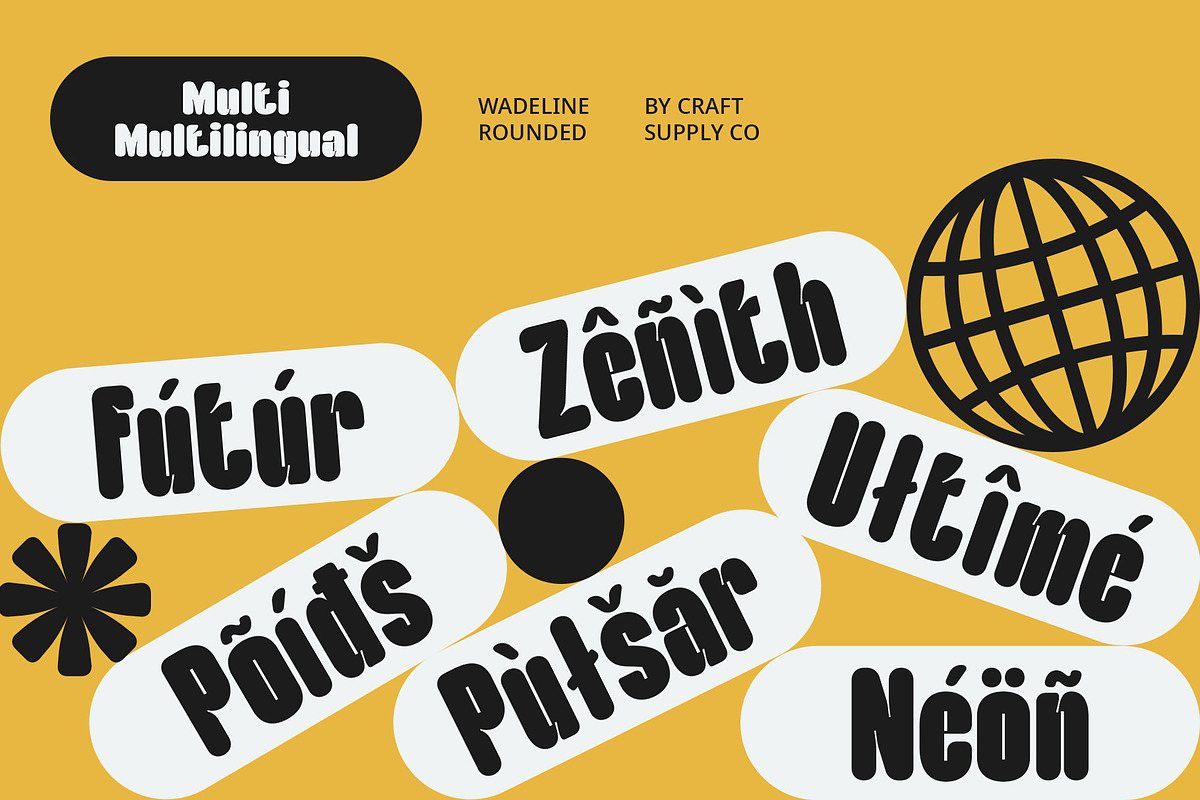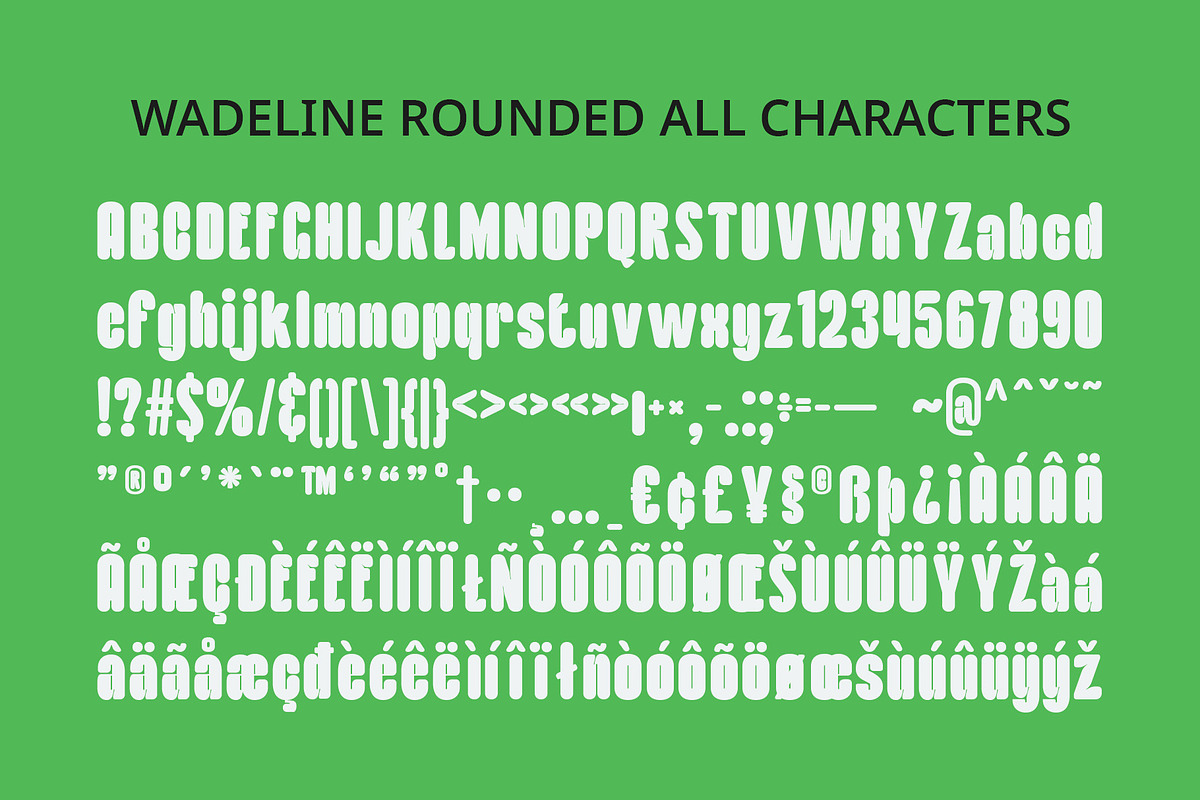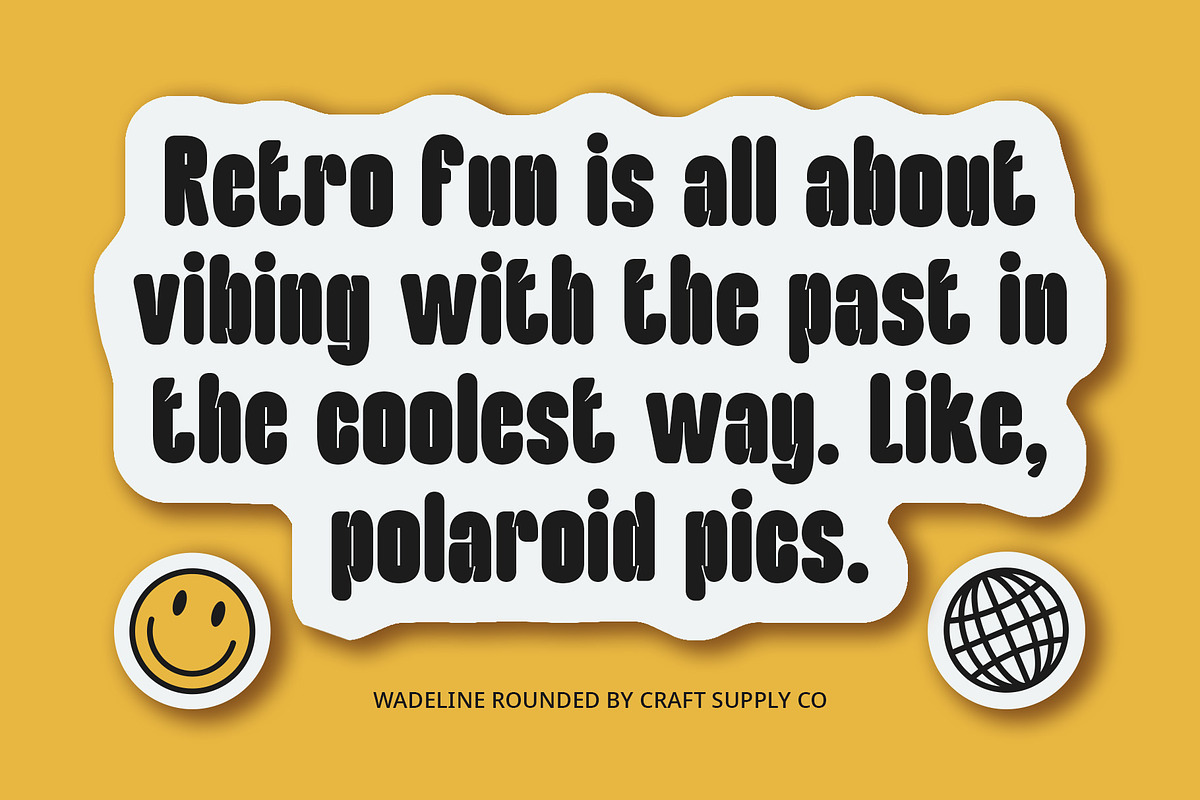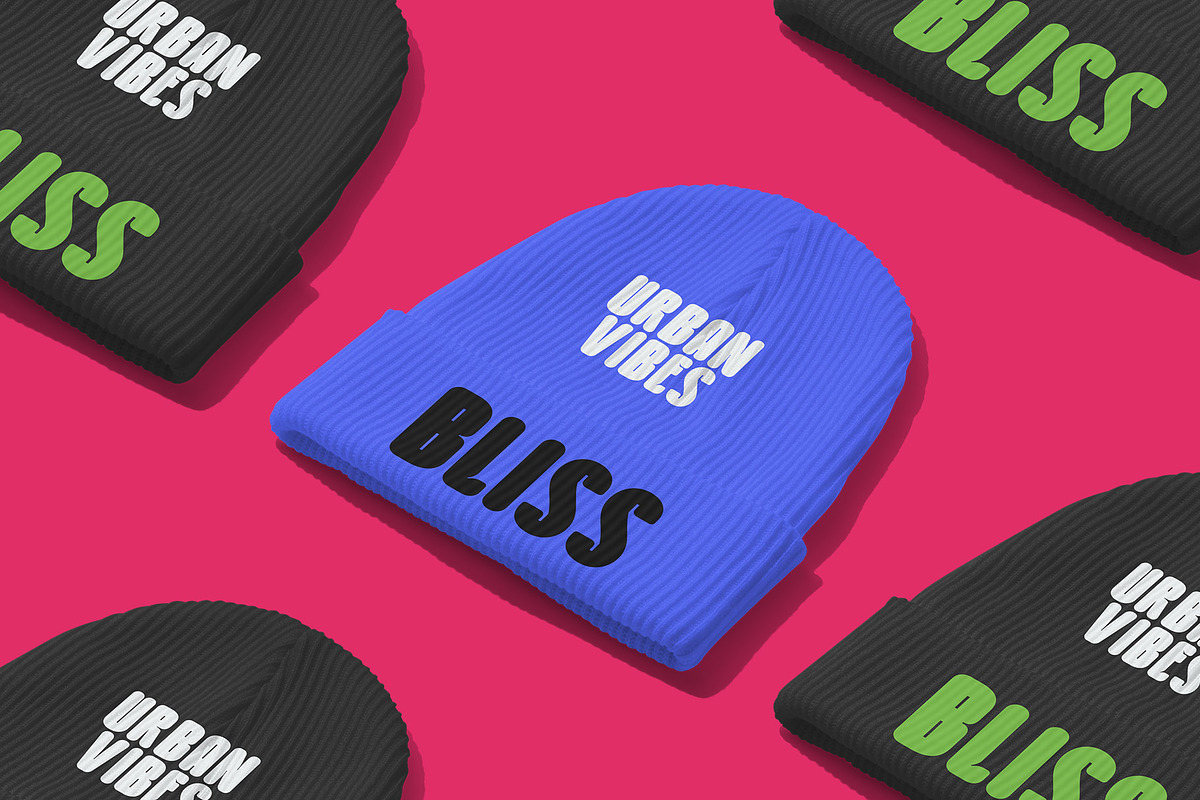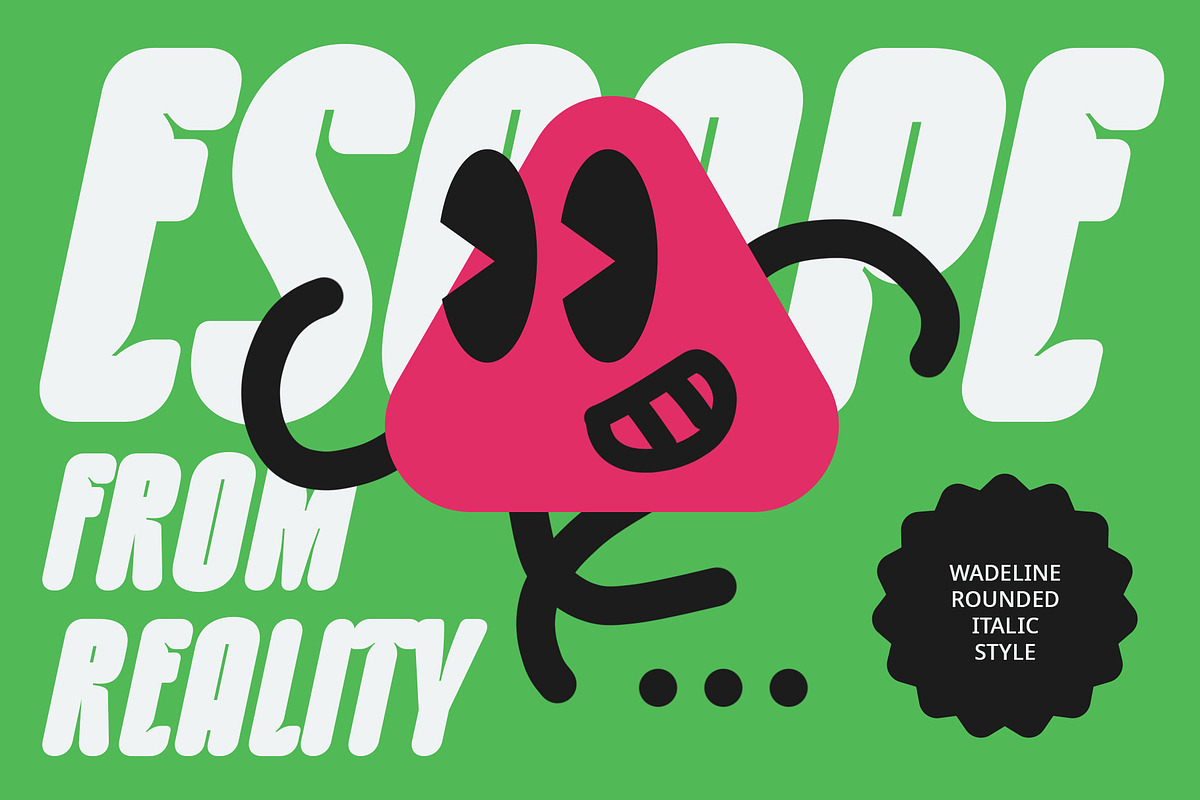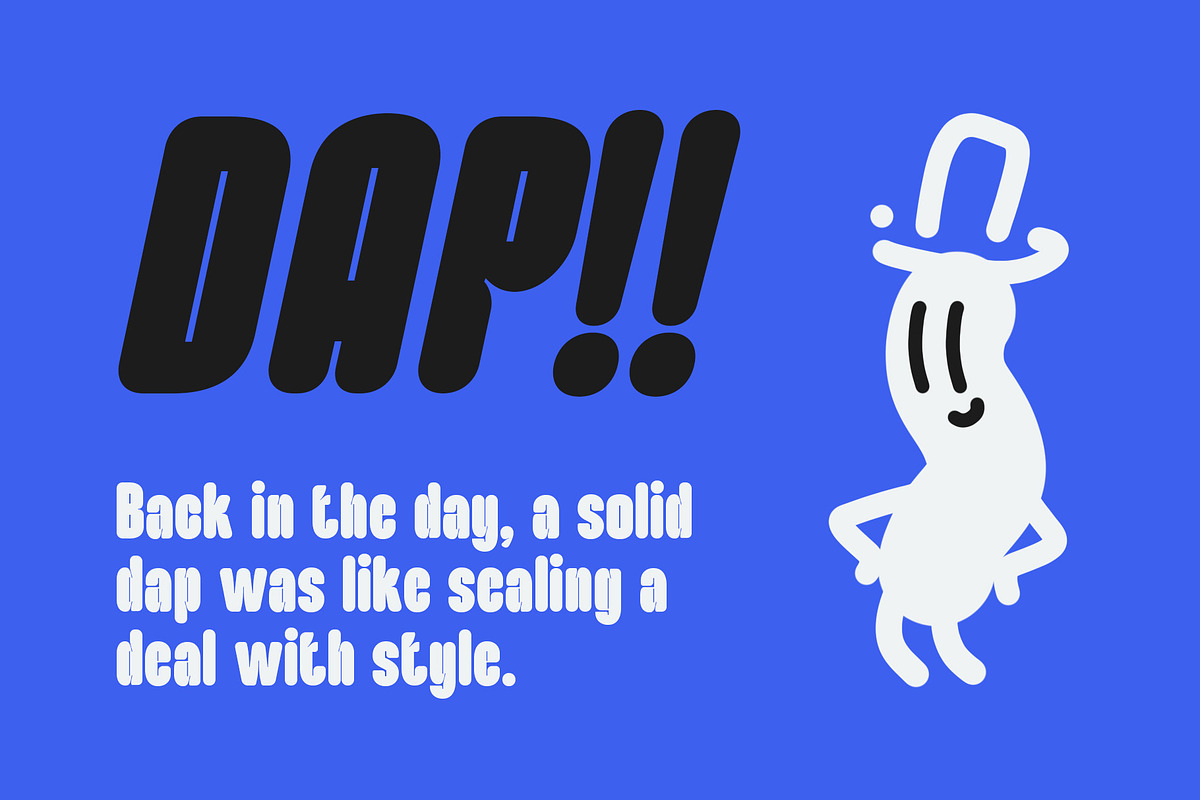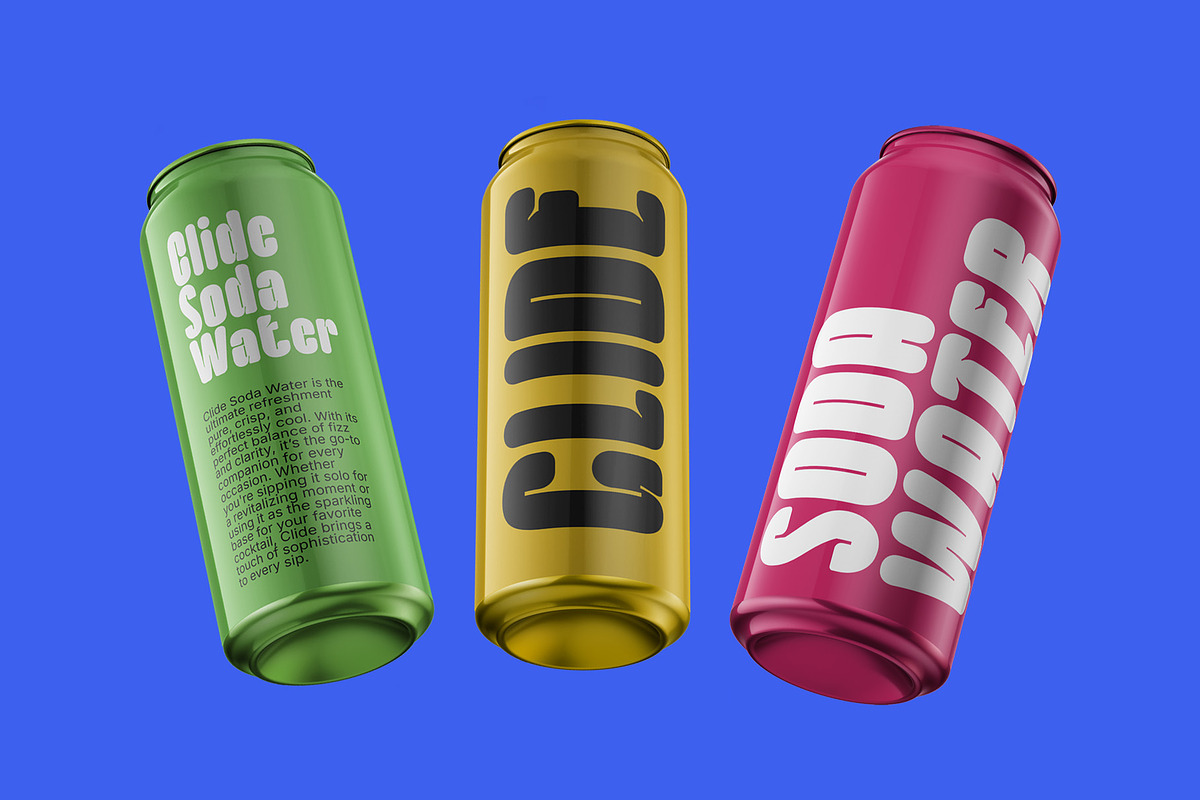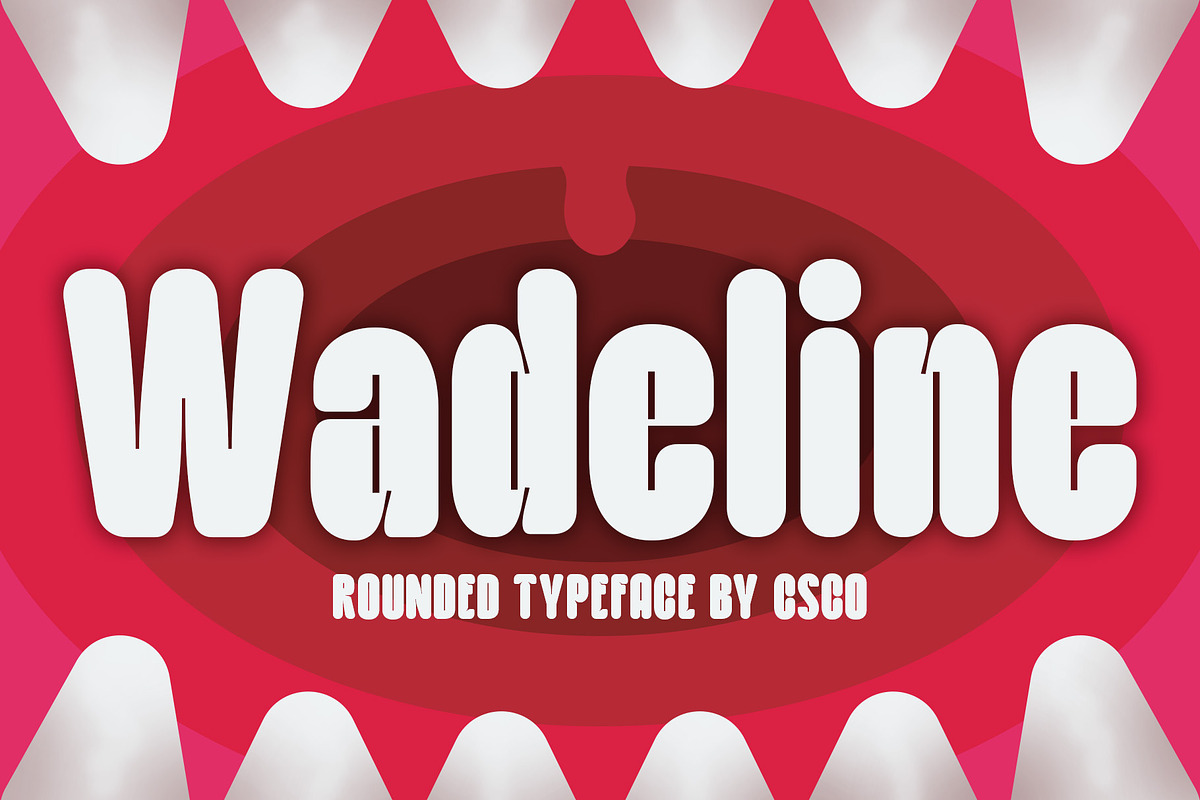
Wadeline Rounded
Wadeline Rounded – Bold and Compact Sans-Serif Font
Modern, Condensed Design with a Friendly Touch Wadeline Rounded is a bold, condensed sans-serif font that combines strength with a soft, approachable charm. Its thick, clean strokes and compact form make it an ideal choice for designs that need to make a strong visual impact, while the rounded edges offer a sense of warmth and accessibility. This font strikes a perfect balance between modern confidence and friendly appeal, making it a versatile addition to any design toolkit.
Impactful and Clear With its condensed structure, Wadeline Rounded maximizes space without sacrificing readability or style. The bold letterforms make it stand out in headlines, branding, and advertising, offering a contemporary, dynamic aesthetic. Despite its boldness, the rounded edges soften the look, ensuring that it remains inviting and approachable. Whether used in large-scale headlines or small text blocks, this font ensures clarity and legibility, while still capturing attention.
Versatile for a Range of Projects Perfect for projects that demand a modern, professional look with a touch of warmth, Wadeline Rounded is ideal for everything from branding and logos to posters and advertisements. Its compact, impactful design works well in both digital and print mediums, offering flexibility for a wide range of applications. This font is especially effective for projects that want to convey confidence while maintaining a friendly, accessible vibe.